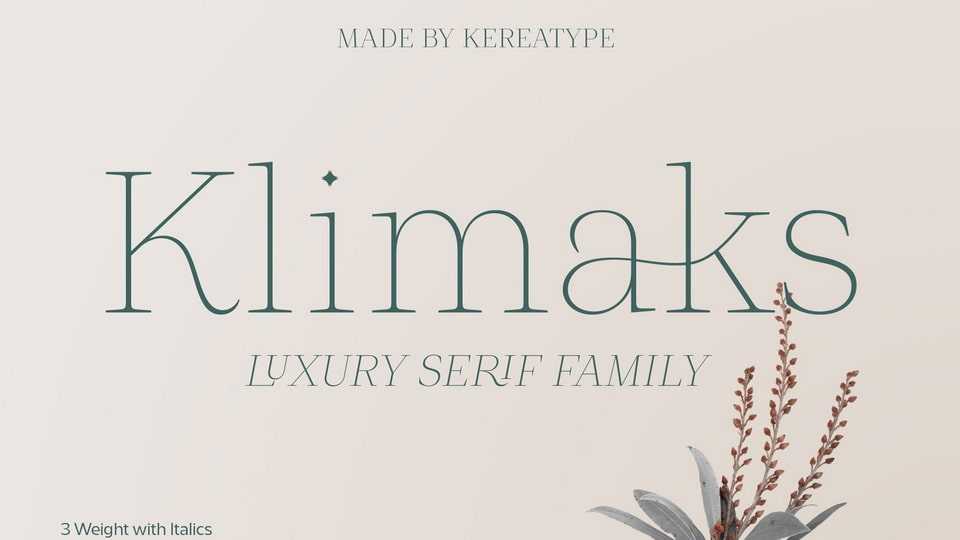
Download Klimaks font, a modern serif typeface whose design refers to the style of transitional serifs. Klimaks font has been crafted from scratch with a structural logic of its own: a fusion of pure geometry and optical balance.
Designer: Kereatype Studio